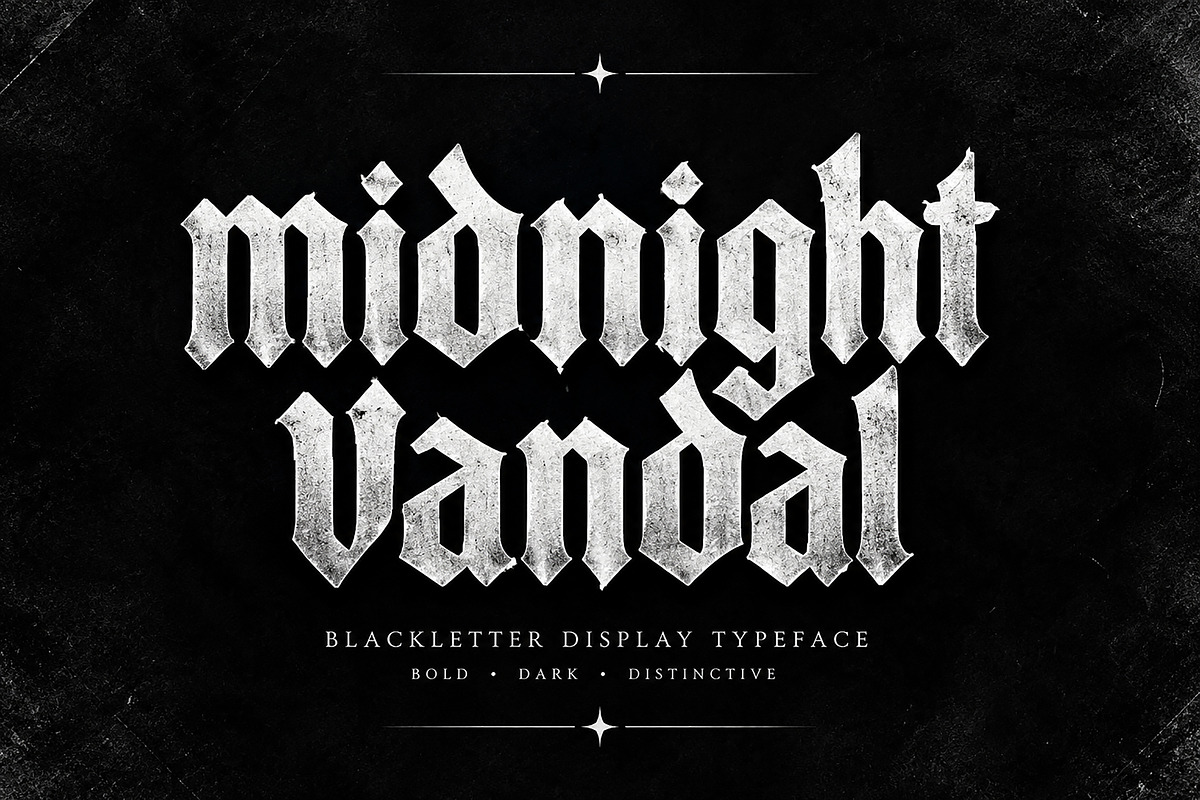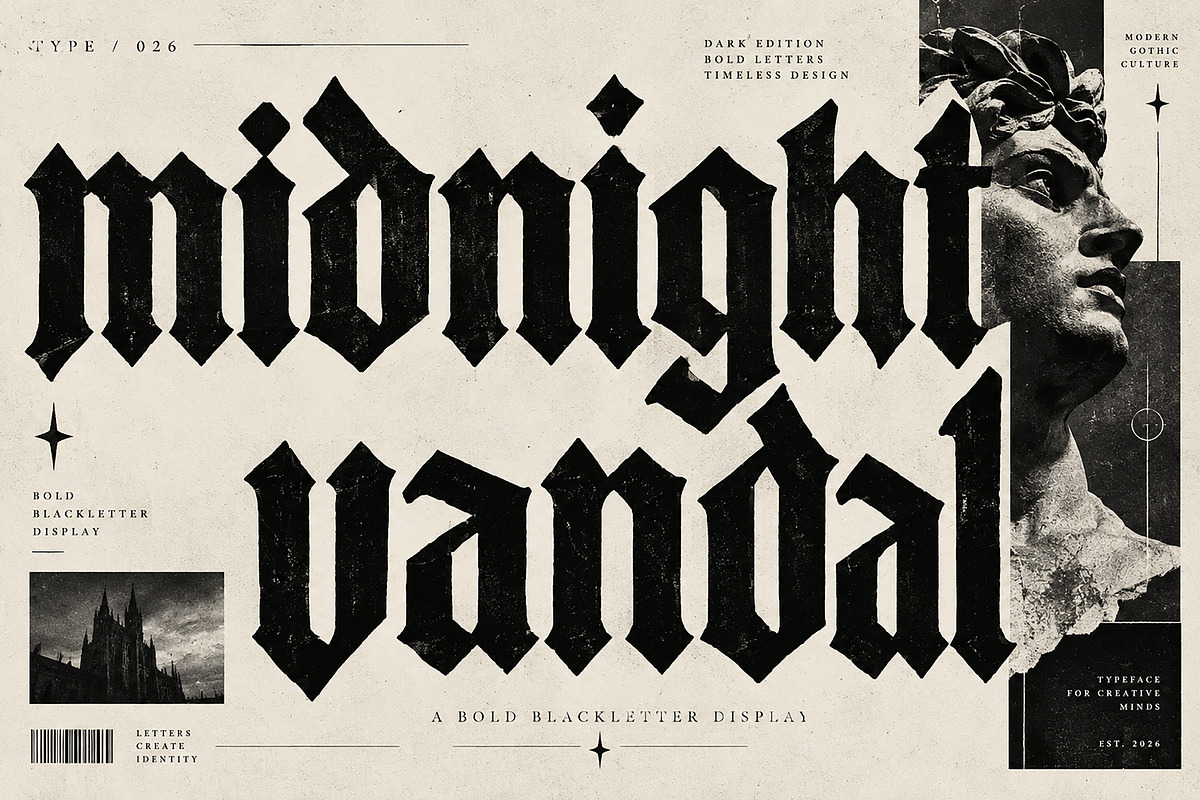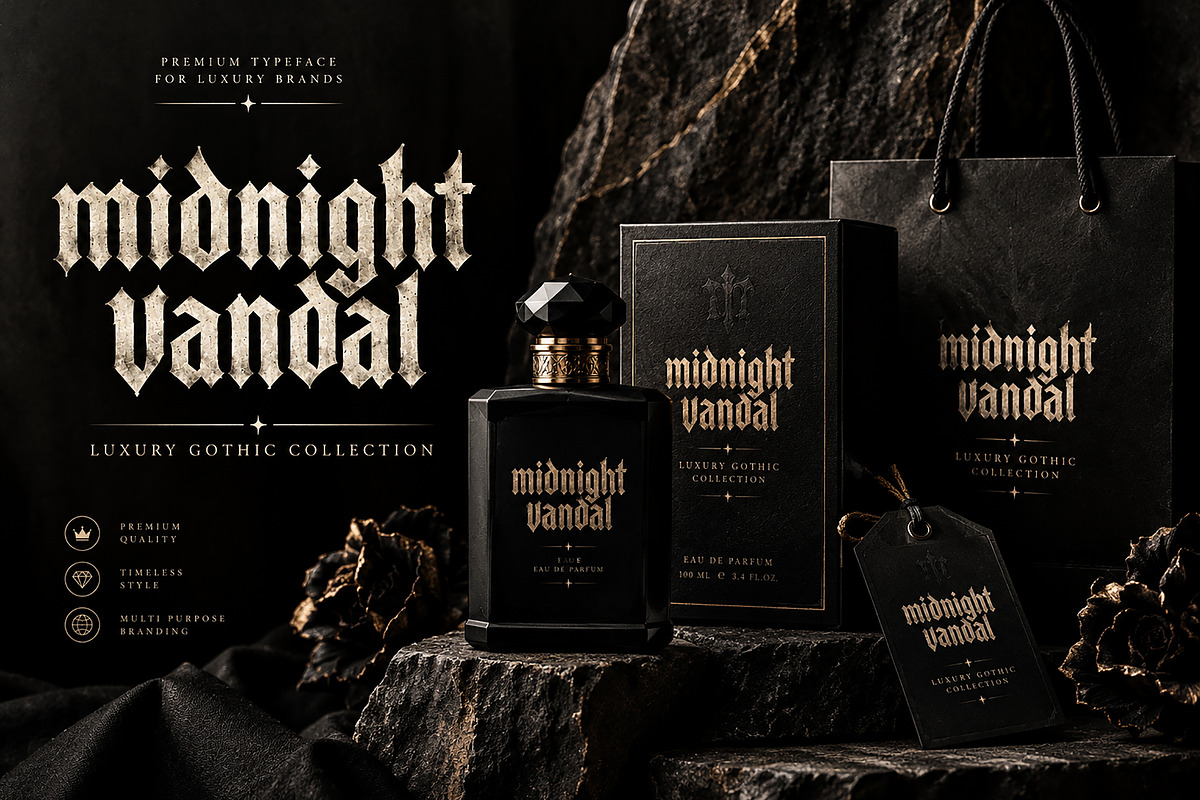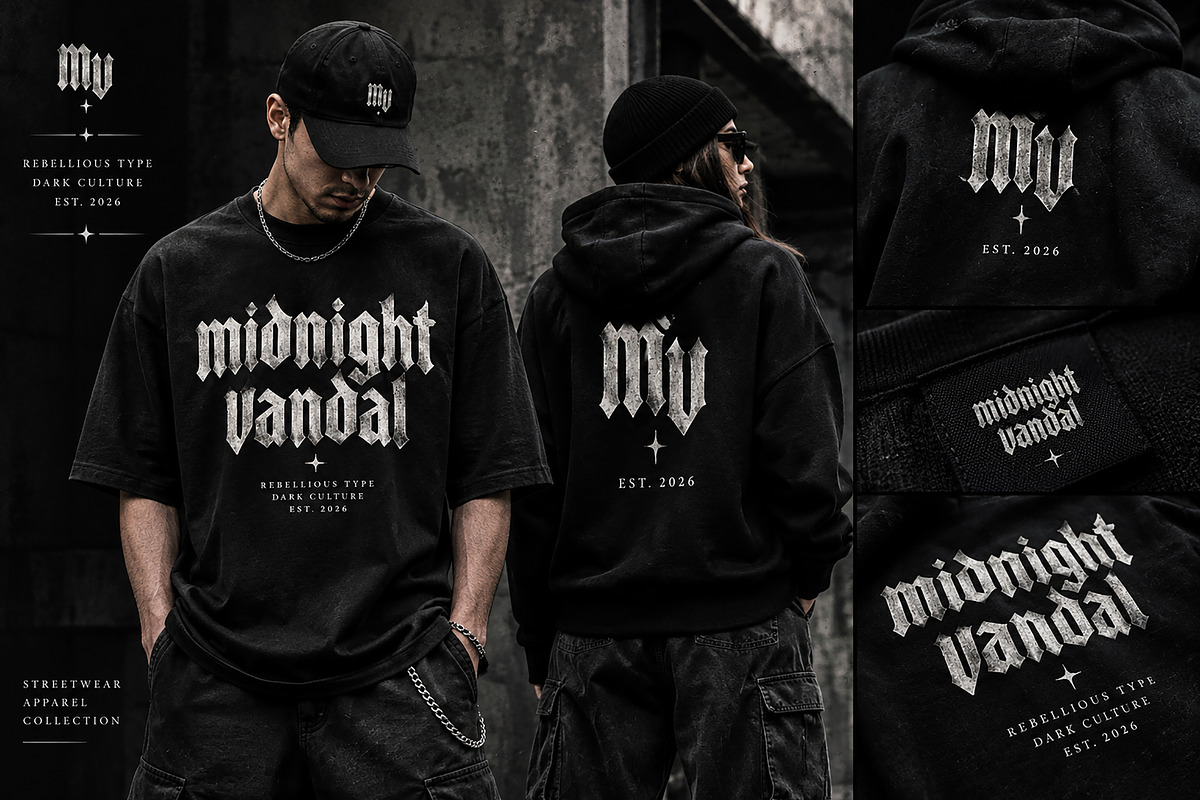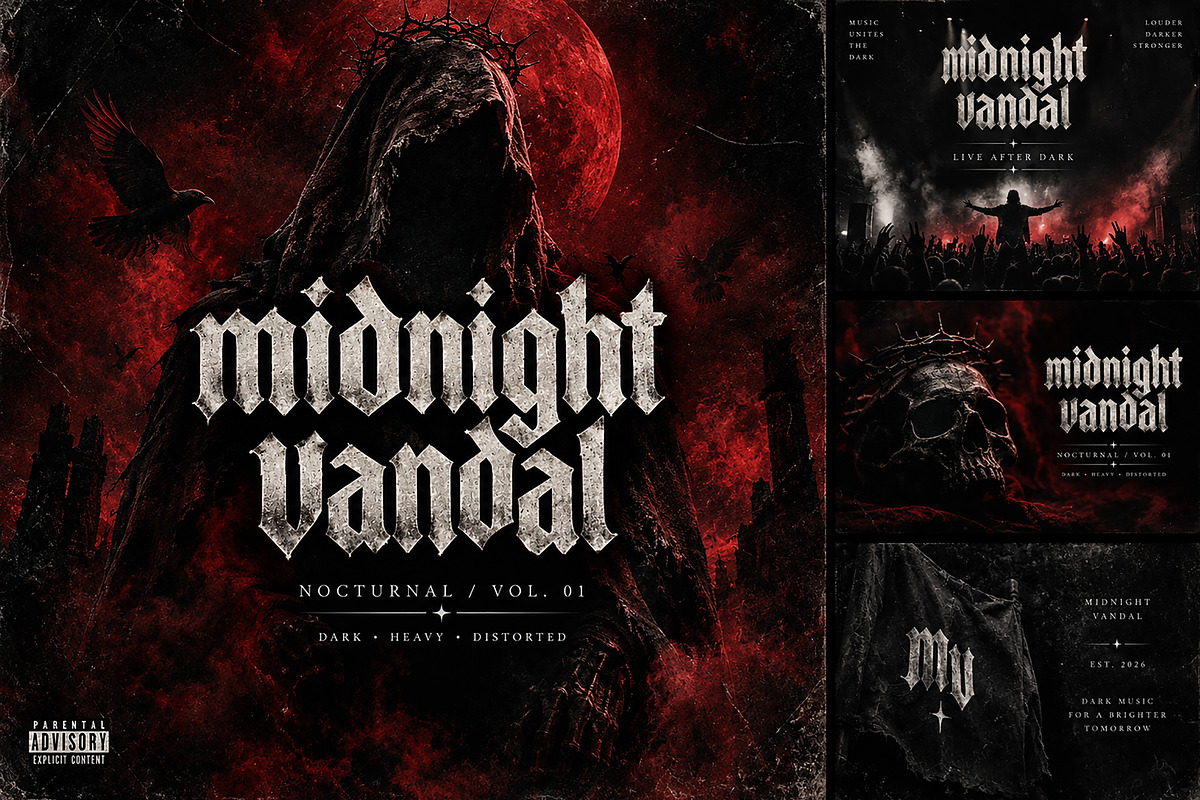
Midnight Vandal
Midnight Vandal | Bold Gothic Blackletter Typeface
Midnight Vandal is a bold and dramatic Blackletter / Gothic Display Typeface designed for projects that need a strong, rebellious, and distinctive visual identity. Its sharp angular forms and classic gothic character create an intense editorial aesthetic while maintaining a powerful display presence.
Perfect for streetwear branding, fashion labels, music artwork, album covers, posters, merchandise, tattoo-inspired designs, luxury packaging, logos, labels, editorial graphics, and dark-themed branding.
Midnight Vandal is especially effective when used at large sizes, making it an excellent choice for headlines, brand names, statement graphics, and attention-grabbing typography.
Streetwear & Fashion Branding
Clothing & Apparel Designs
Music & Album Artwork
Concert & Event Posters
Gothic & Alternative Branding
Logos & Brand Identity
Merchandise & T-Shirt Designs
Posters & Editorial Design
Labels & Packaging
Tattoo-Inspired Artwork
Album & Book Covers
Dark Luxury Branding
Creative Typography Projects
Style: Bold Blackletter / Gothic Display
Why You'll Love Midnight Vandal
Bold and impactful blackletter appearance
Strong gothic and rebellious personality
Excellent for large-scale display typography
Ideal for dark, alternative, and fashion-focused projects
Versatile for branding, posters, apparel, music, and packaging
Designed to create an immediate visual impact
Bring a dark, rebellious edge to your next design with Midnight Vandal.